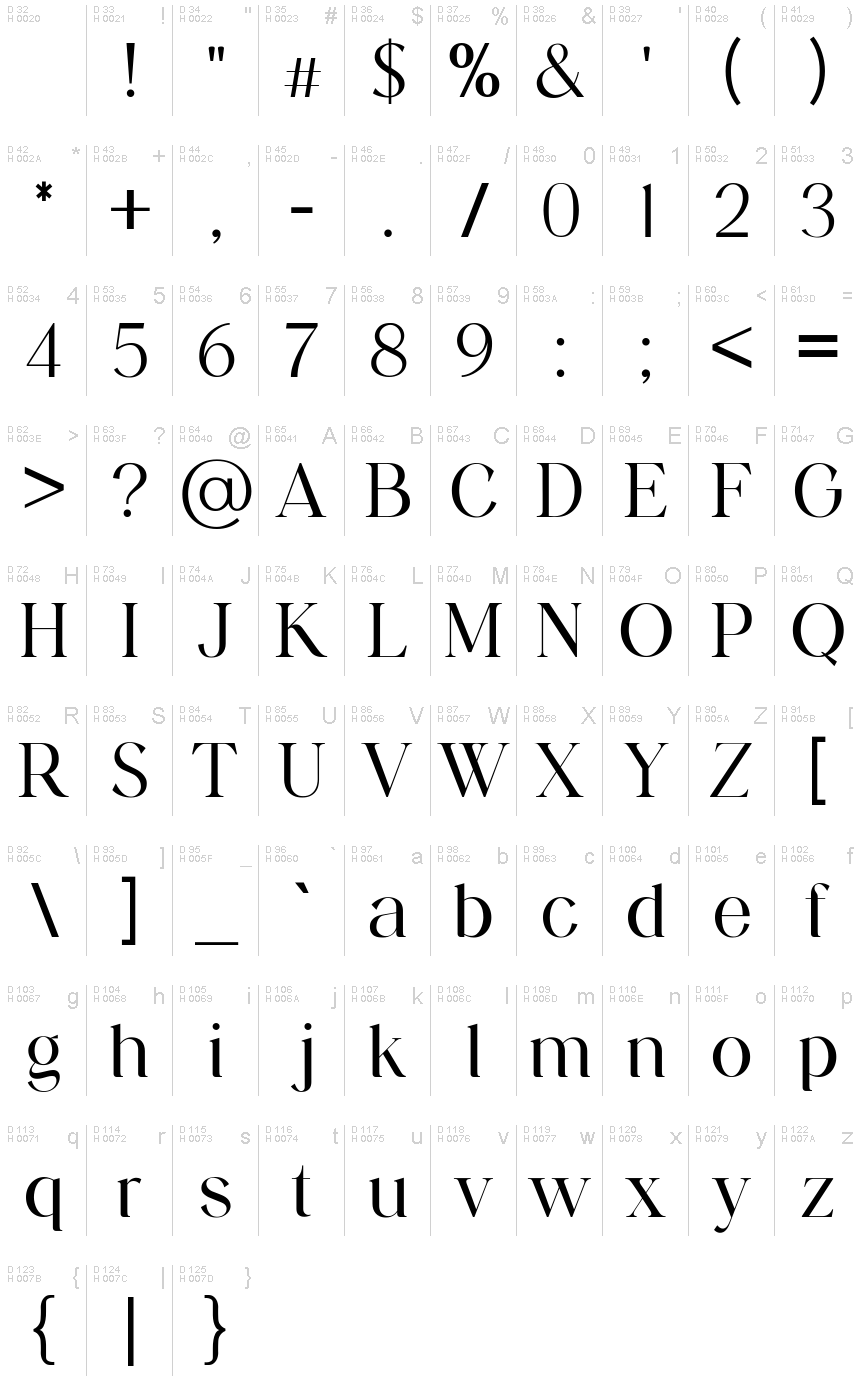
Lecherously Regular
Lecherously, crafted by UI Creative, is a serif font that exudes elegance and sophistication. Its refined strokes and subtle curves present a sense of timeless beauty, capturing attention with poise and grace. The slightly expanded characters lend an air of grandeur and opulence, making Lecherously ideal for high-end branding, editorial design, or luxury packaging.
This font's meticulous design details set it apart in any setting where class and distinction are paramount. Whether gracing the cover of a fashion magazine or enhancing the visual identity of a premium brand, Lecherously brings an undeniable charm to every word it shapes, ensuring your message not only communicates but captivates as well.